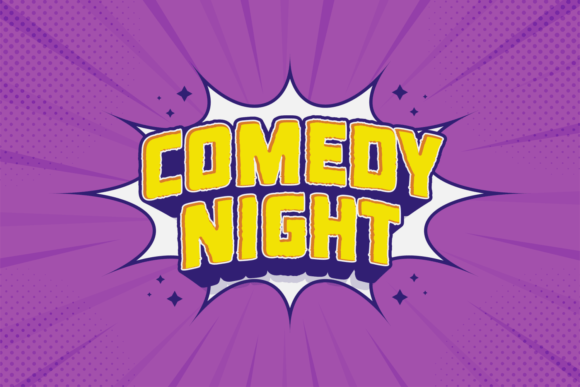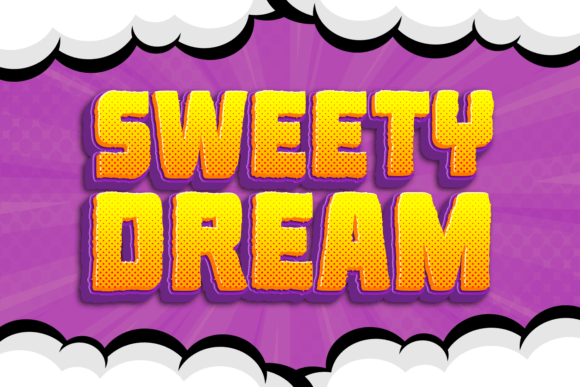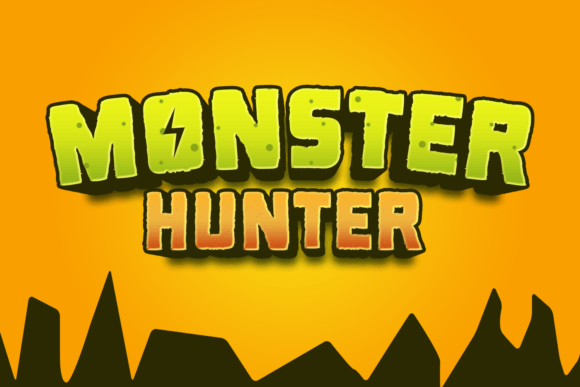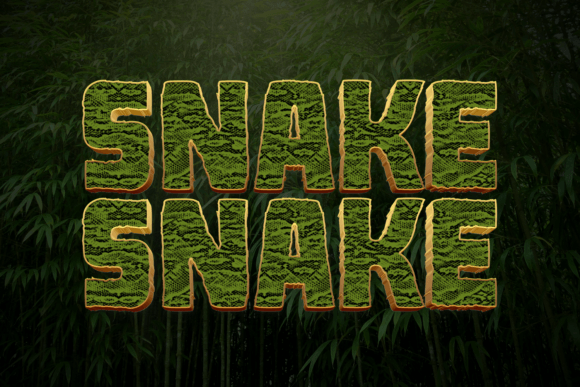
The Power of Heroes: Unleashing Creativity with Heroes Power Font
I still remember the frustration of working on a project, hours spent searching for the perfect font, only to come up empty-handed. My client wanted a logo that exuded strength and power, but I just couldn’t find the right fit. That was until I stumbled upon Heroes Power, a fun, thick-bodied display font that has since become a staple in my design toolkit.
A Font that Packs a Punch
Heroes Power is more than just a font – it’s a statement piece. This playful and vibrant typeface features a lightning bolt for the uppercase O, making it perfect for showcasing strength and power. Whether you’re working on a logo, advertising materials, apparel, posters, book covers, or more, Heroes Power is sure to make your design stand out.
My Honest Review
- ✨ The bold, thick-bodied design makes it perfect for headlines and titles
- ✅ The unique lightning bolt feature for the uppercase O adds a touch of personality
- 🎉 The font’s playful and vibrant vibe makes it perfect for creative projects
While Heroes Power is an amazing font, there are a few things to keep in mind: 🤔
- ⚠️ The font’s bold design may not be suitable for body text or smaller sizes
- ⚠️ Some users may find the lightning bolt feature for the uppercase O to be a bit distracting
The Designer Inspiration Behind Heroes Power
The story behind Heroes Power is one of creativity and inspiration. The font’s designer was inspired by the idea of strength and power, and wanted to create a font that would reflect those qualities. With its bold, thick-bodied design and unique lightning bolt feature, Heroes Power is the perfect font for designers who want to make a statement.
Q: What is Heroes Power font?
A: Heroes Power is a fun, thick-bodied display font featuring a lightning bolt for the uppercase O. It’s perfect for showcasing strength and power in your designs.
Q: What can I use Heroes Power font for?
A: Heroes Power is versatile and can be used for a variety of design projects, including logos, advertising materials, apparel, posters, book covers, and more.
Q: Is Heroes Power font easy to read?
A: Heroes Power is a bold font, and while it’s perfect for headlines and titles, it may not be suitable for body text or smaller sizes.